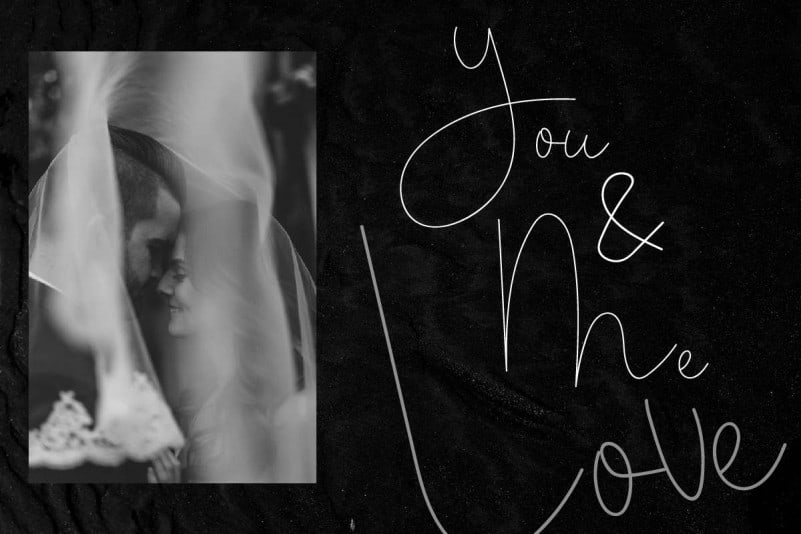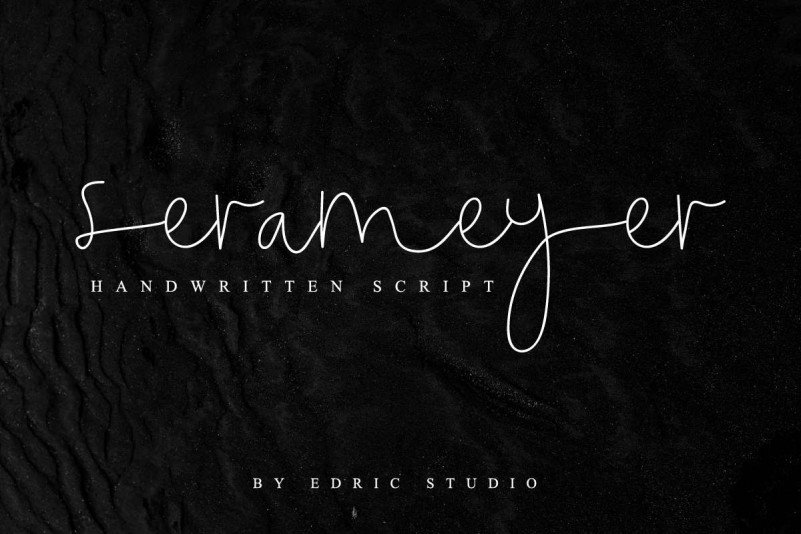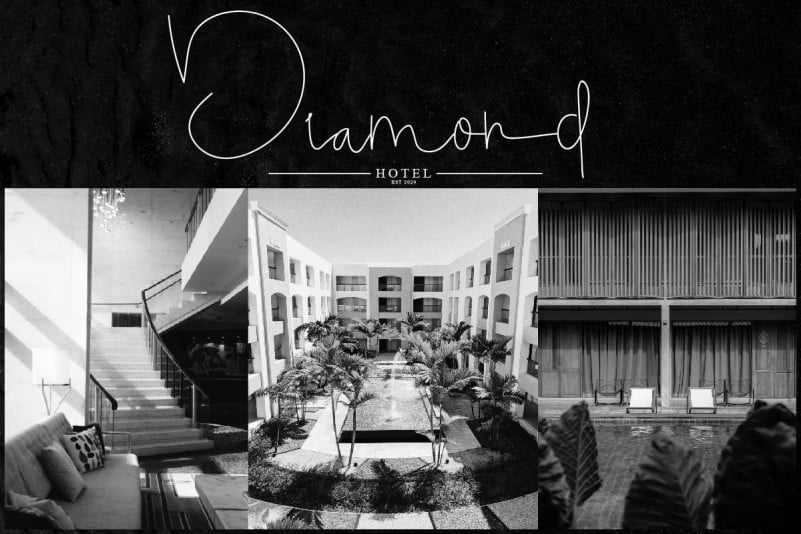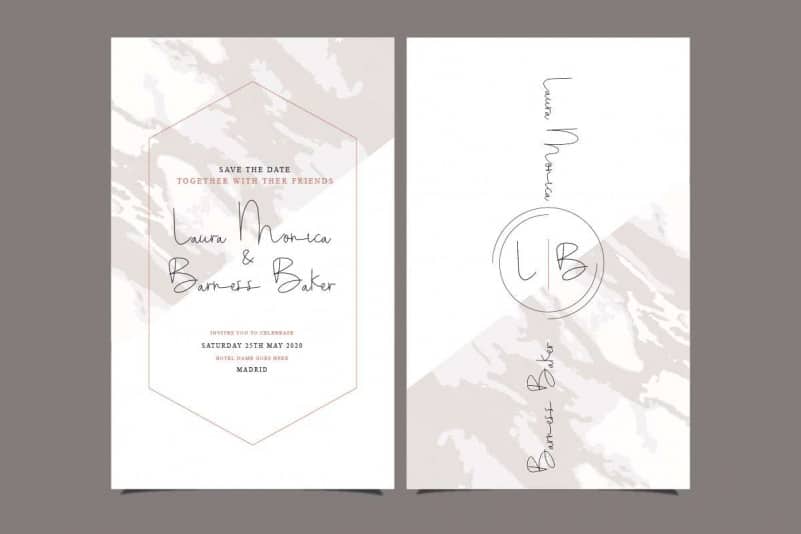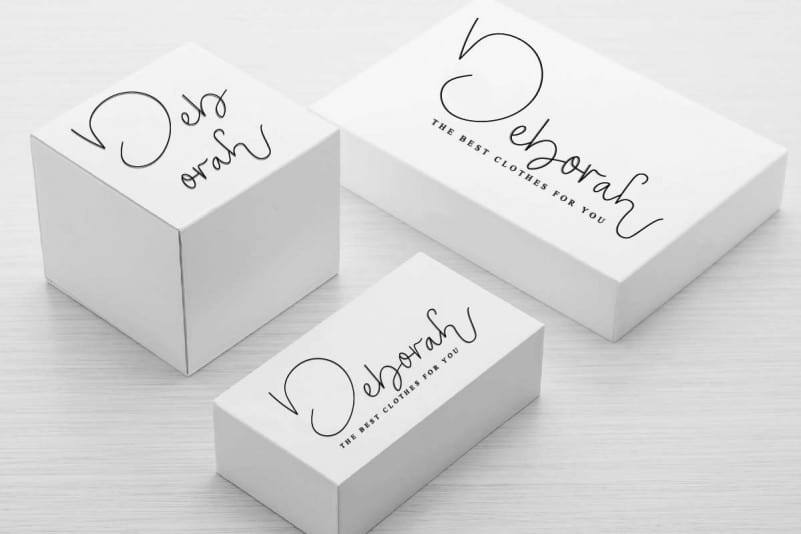
Serameyer Handwriting Font
Serameyer Handwriting Font has a unique glyphs set so you can explore your creativity further more. This font will suits many projects categories : Logo type, flyer, stationery, business card, signage, flyer, brochure etc.  With your creativity, there’s no limit using with this font.